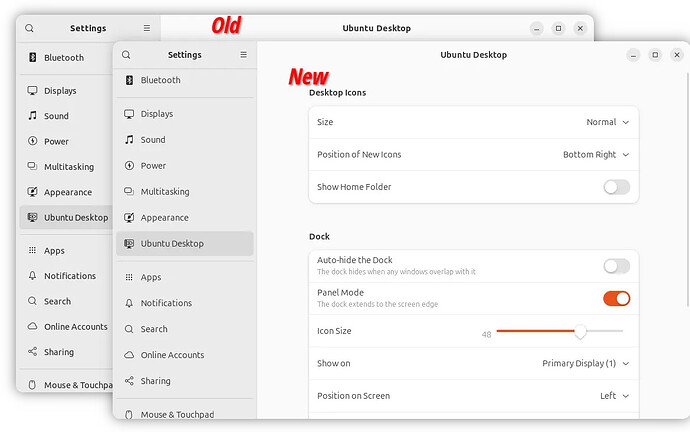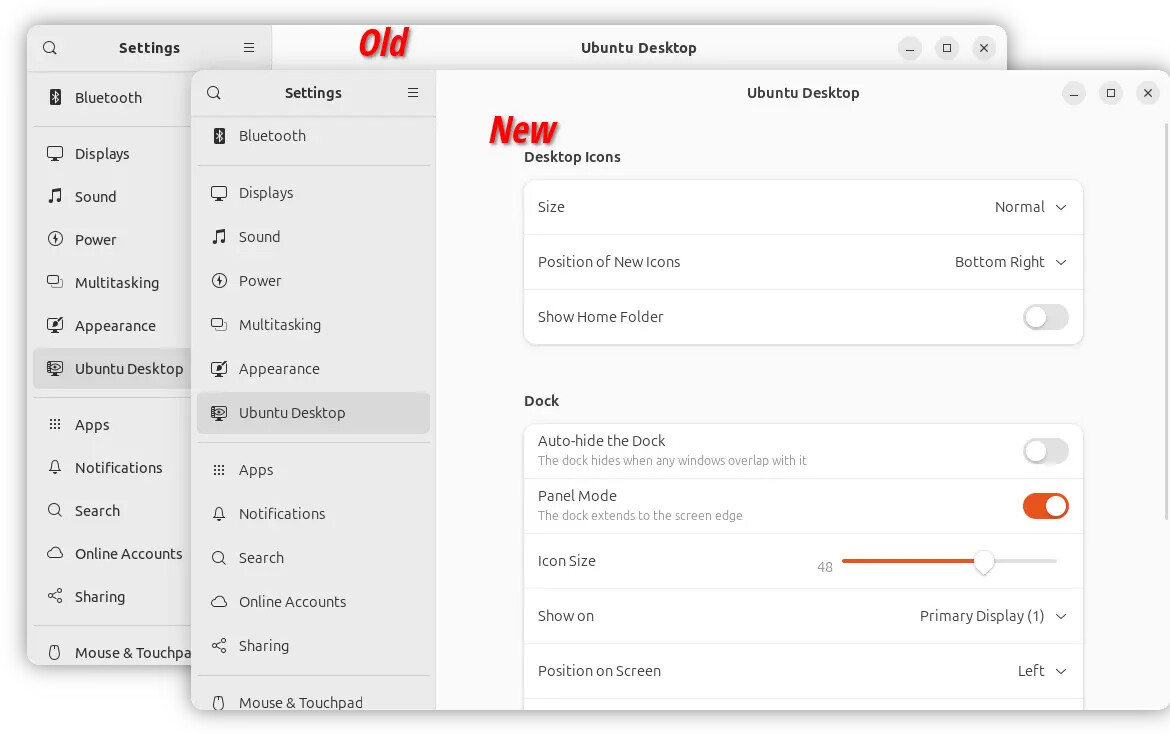
Something I had learned over the weekend is that you INDEED can get the old Ubuntu font back in Modern UM (in my case 25.04).
It seems as though UM 24.04 and newer have an updated Ubuntu font which may look sleeker (i.e., thinner), but not necessarily to everyone’s tastes. If you run in your terminal: